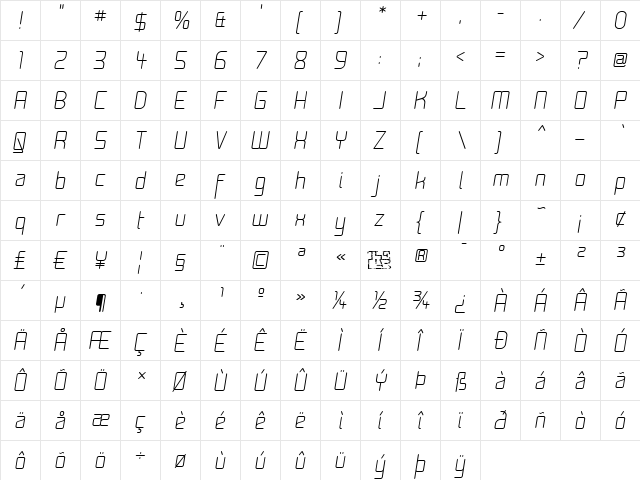
Moondog Zero Italic
Design Context for Moondog Zero Typeface
Moondog Zero offers clean, dependable letterforms without strong stylistic allegiance, making it a practical choice for designers who need flexibility. Its italic angle brings a sense of urgency and motion to the letterforms.